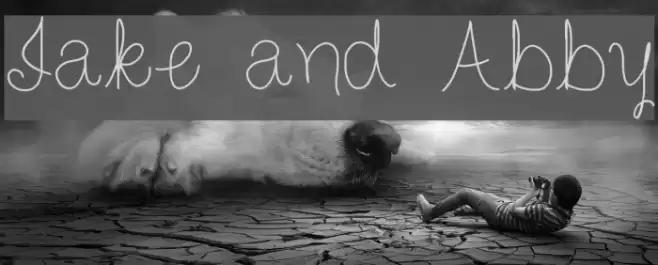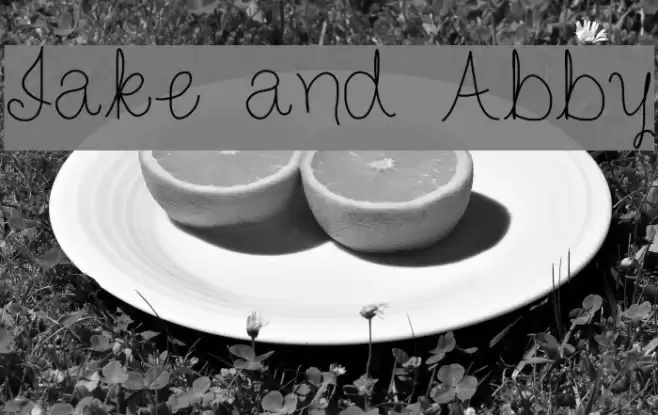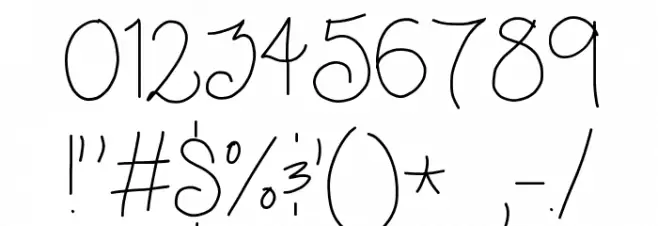
Jake and Abby Font
Jake and Abby Description
This font features a playful and whimsical handwritten style, characterized by its flowing and looping strokes. The uppercase letters exhibit a consistent height with a slight slant, adding to the casual feel. Lowercase letters maintain a similar style, with some characters like 'g' and 'y' having distinctive loops that enhance the font's charm. The numerals are clear and maintain the playful aesthetic, making them easily readable. Special characters are creatively designed, fitting seamlessly with the overall style. This font's unique character and informal tone make it suitable for projects that require a personal touch.
A playful, whimsical handwritten font with flowing strokes and a casual feel from Handwritten fonts.
- Proposed Projects: Ideal for greeting cards, invitations, personal branding, and creative projects that require a friendly and approachable look.
- Overall Style: Playful, Whimsical
- Use Case: Logos, Invitations, Greeting Cards